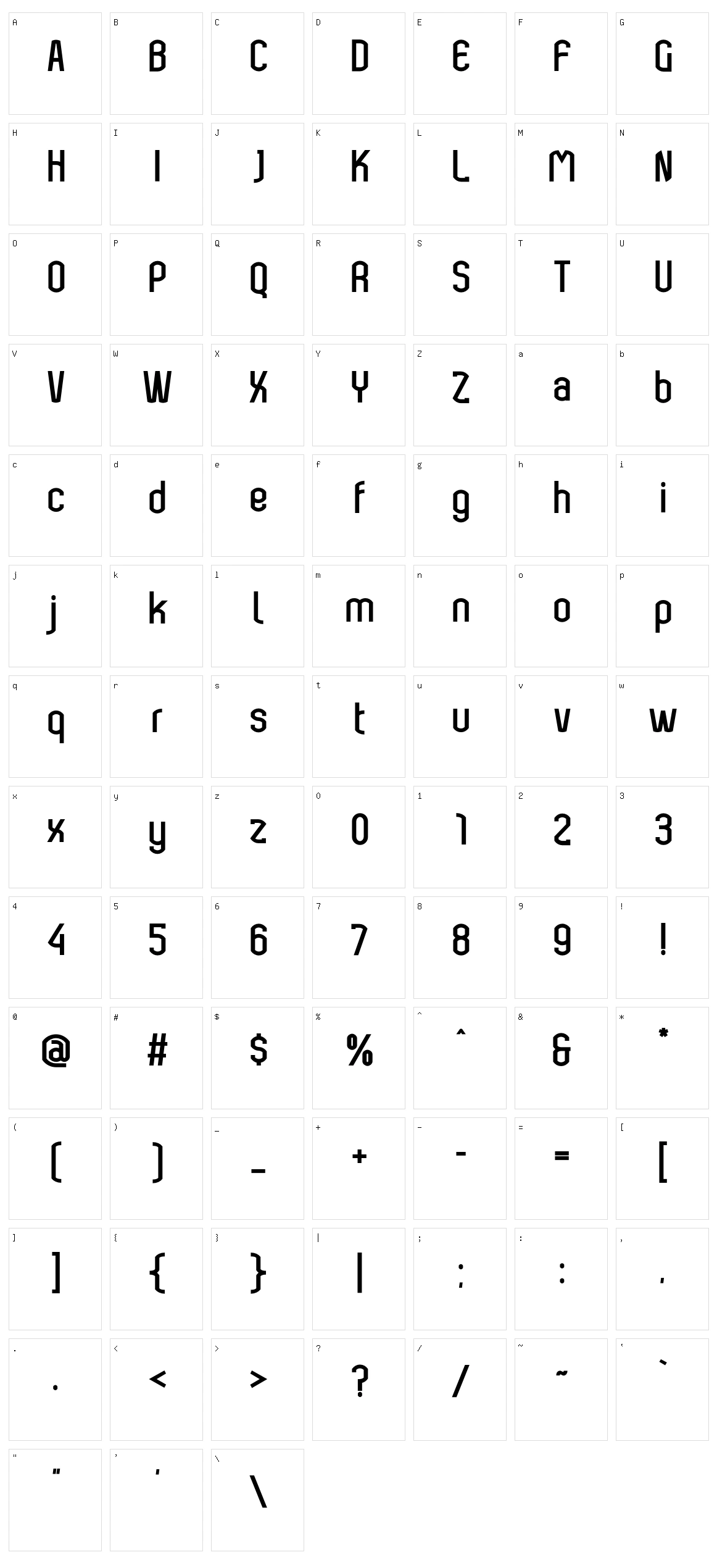
Bokeseni is a gorgeous sans serif with a modern and futuristic feel! It comes in three distinct versions, regular, black and expanded! It has 62 fonts.